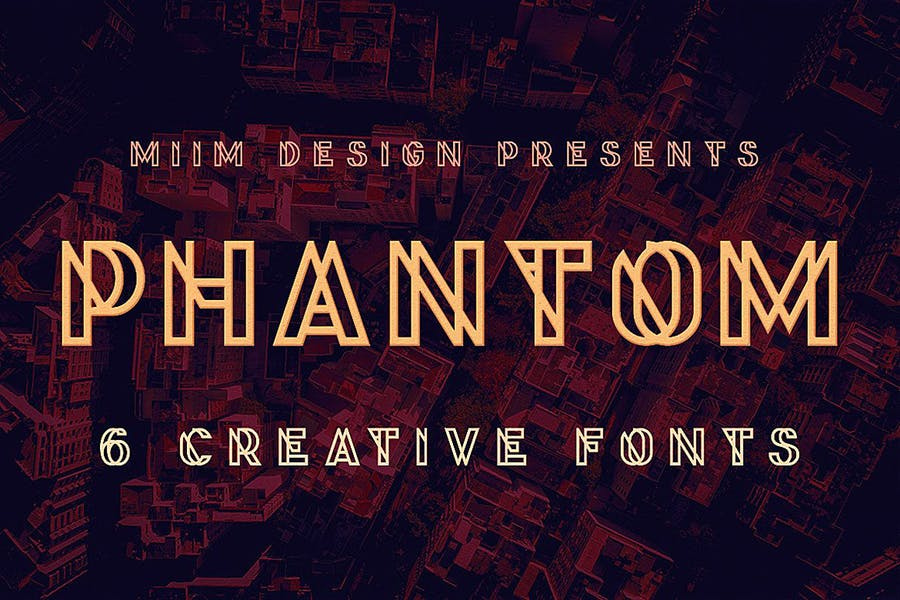
Phantom - Display Font
Phantom - Display Font is perfect for horror movie titles, mysterious gothic brands, supernatural entertainment venues, haunting theatrical productions, spectral gaming interfaces, otherworldly music promotions, eerie Halloween campaigns, ghostly escape rooms, phantom-themed restaurants, and enigmatic supernatural lifestyle brands.
Phantom - Display Font creates excitement because it embodies the ethereal mystery and supernatural elegance of ghostly apparitions with its haunting letterforms and spectral-inspired character design. The font's translucent curves and otherworldly aesthetic instantly convey supernatural intrigue and phantom sophistication, making any brand appear mysteriously captivating and authentically supernatural. Its carefully crafted ghostly details and spectral character create an immediate sense of otherworldly presence that captivates audiences seeking mysterious experiences, supernatural quality, and products that celebrate the transformative power of phantom mystique and ghostly elegance.
This haunting typeface brings the authentic spirit of supernatural mystery into contemporary ghostly design with remarkable elegance and phantom appeal. Phantom - Display Font Free Download provides supernatural brands and mysterious organizations with access to premium phantom-inspired typography that embodies the essence of ghostly sophistication and spectral excellence. The font's ethereal design and supernatural authenticity make it ideal for businesses seeking to establish meaningful connections with mystery-loving audiences who appreciate supernatural culture, phantom experiences, and the transformative power of otherworldly mystery that transcends ordinary reality. Whether you're creating branding for horror entertainment companies, designing materials for supernatural venues, developing communications for mysterious organizations, or producing content for ghostly entertainment platforms, this font delivers the haunting phantom atmosphere that resonates with audiences seeking genuine supernatural experiences, mysterious quality, and the otherworldly elegance that comes from embracing authentic phantom mystique. Its versatile design ensures outstanding performance across both mysterious printed materials and ethereal digital supernatural platforms while maintaining the character of authentic ghostly typography. The font excels in applications requiring supernatural credibility and phantom appeal. Horror entertainment professionals appreciate its ability to convey ghostly authenticity while remaining highly functional for various supernatural communications and phantom promotional materials. The comprehensive character set includes spectral symbols and extensive international language support, making it perfect for global supernatural brands and international phantom organizations seeking to communicate authentic ghostly mystery, supernatural excellence, and phantom elegance to diverse worldwide audiences who embrace supernatural culture, appreciate otherworldly experiences, and value the transformative power of genuine phantom mystique that opens doorways to supernatural realms through ethereal beauty, ghostly sophistication, and the haunting elegance of phantom presence that exists between the world of the living and the mysteries beyond.